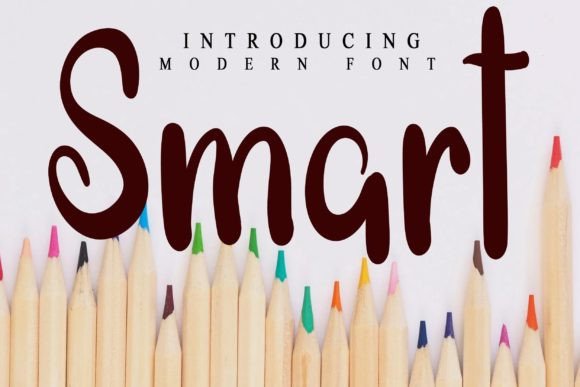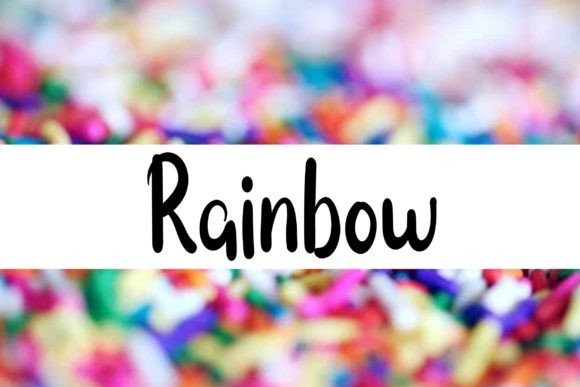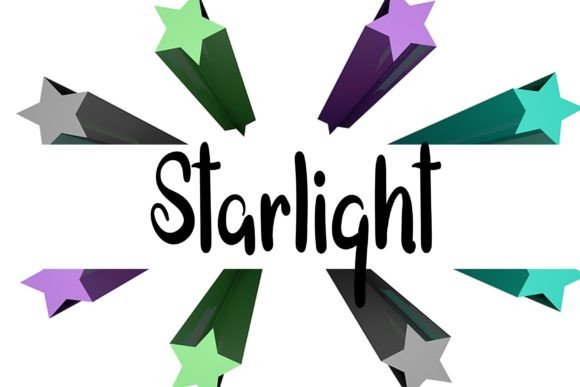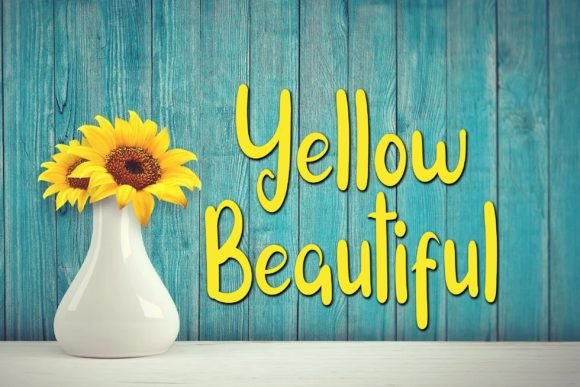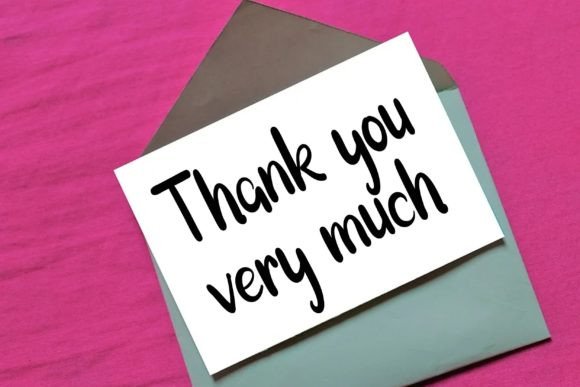
Smart Font
About Smart Font
“Smart” is a font that injects a sense of freshness and beauty into your design projects. Tailored for various purposes such as YouTube banners, cover logo mockups, wedding invitations, ID cards, flyers, and crafts, it serves as a versatile tool to enhance the visual appeal of your creations. Utilizing “Smart” in your designs not only adds aesthetic value but also positions your business for progress and development.
The font’s fresh and beautiful aesthetic makes it adaptable to different design contexts, from the dynamic and engaging atmosphere of YouTube banners to the sophisticated elegance required for wedding invitations. Its versatility extends to professional applications such as ID cards, as well as eye-catching promotional materials like flyers and crafts.
The simplicity and uniqueness of “Smart” are key attributes that contribute to its appeal. In the realm of design, where clarity and distinctiveness are paramount, this font offers a straightforward yet captivating visual language. It becomes a signature element in your designs, ensuring that your branding and promotional materials are easily recognizable and memorable.
Beyond its visual appeal, “Smart” is positioned as more than just a font—it’s a catalyst for business growth. The claim that using this font will lead to progress and development underscores its potential impact on your brand identity and overall business success. Its simplicity ensures that your message is conveyed clearly, and its uniqueness sets your designs apart from the ordinary.
As you integrate “Smart” into your design projects, envision the positive transformations it can bring to your business. Let it be the smart choice that not only adds a touch of beauty to your designs but also propels your brand forward, making a lasting impression on your audience. “Smart” is your ally in the creative journey, offering a blend of simplicity, uniqueness, and potential for business development.